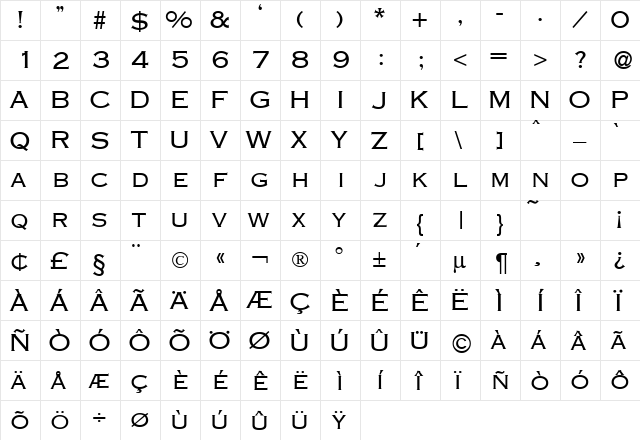
CopperDB Bold
Design Context for CopperDB Typeface
CopperDB takes a measured approach to typography — its balanced proportions and neutral character make it a reliable workhorse for both digital and print work. Its bold stroke weight gives it real presence on the page.
Pro Tip: Use CopperDB in both headline and body roles to test its range before committing to a single application.